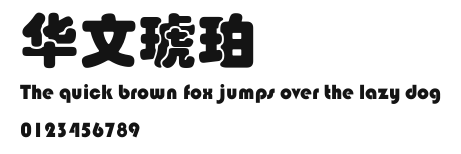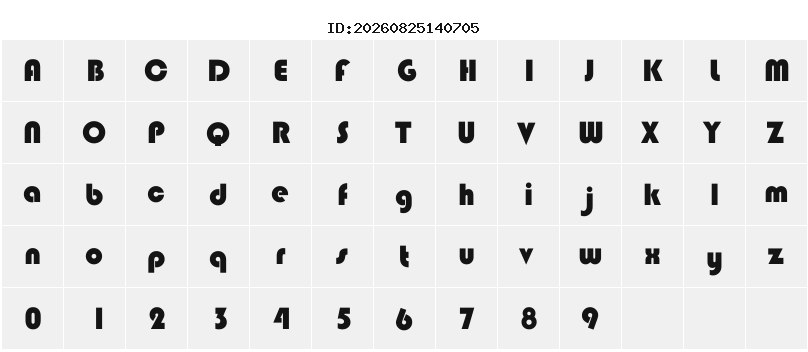
华文琥珀 Preview
• Font Name: 华文琥珀
• Full Font Name: 华文琥珀
• PostScript Name: STHupo
About 华文琥珀.ttf
华文琥珀.ttf is a modern, elegant sans-serif font designed for ultimate readability and visual harmony. Perfect for branding, headlines, web design, and print materials.